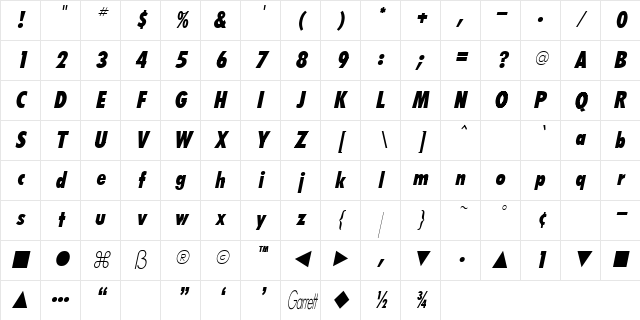
FutaruBoldCondItalic Regular
Design Context for FutaruBoldCondItalic
FutaruBoldCondItalic is a composed and adaptable typeface that performs quietly and consistently across a wide range of design contexts. The slanted form adds forward momentum and visual energy. Its bold stroke weight gives it real presence on the page. Its narrow stance lets it pack a punch even in space-constrained designs.